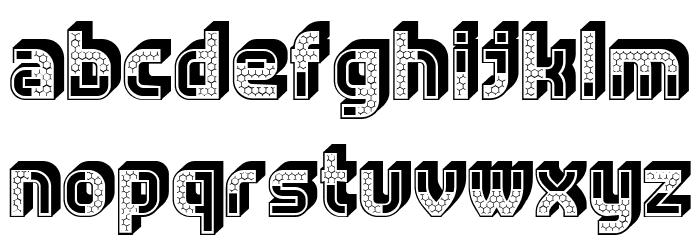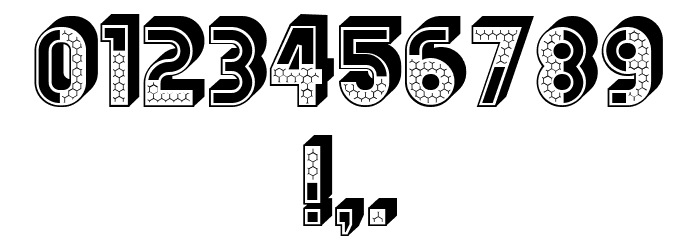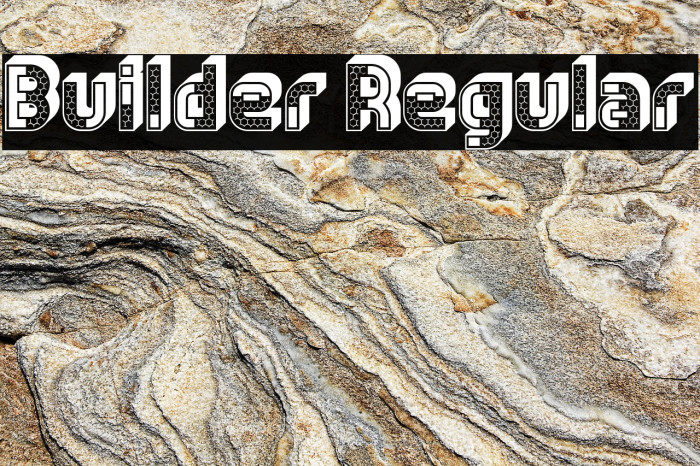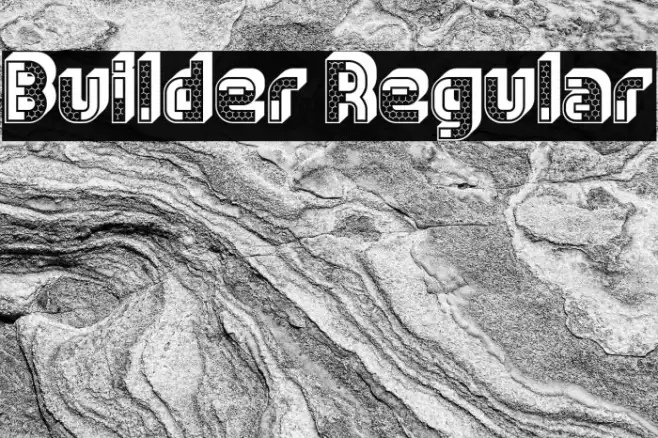
Builder Regular Font
This font features a bold, decorative style with a unique geometric pattern filling each character. The letters are outlined with a thick black border, giving them a strong, impactful presence. The interior pattern consists of hexagonal shapes, adding a modern and industrial feel. The font maintains a consistent weight throughout, with a slightly condensed width that enhances its boldness. The characters are well-spaced, ensuring readability despite the intricate design. This font is ideal for projects that require a standout, eye-catching typeface with a modern twist.
A bold, decorative font with a geometric hexagonal pattern and strong outlines.
- Proposed Projects: Ideal for branding, posters, and headlines where a bold, modern look is desired.
- Overall Style: Modern, Decorative